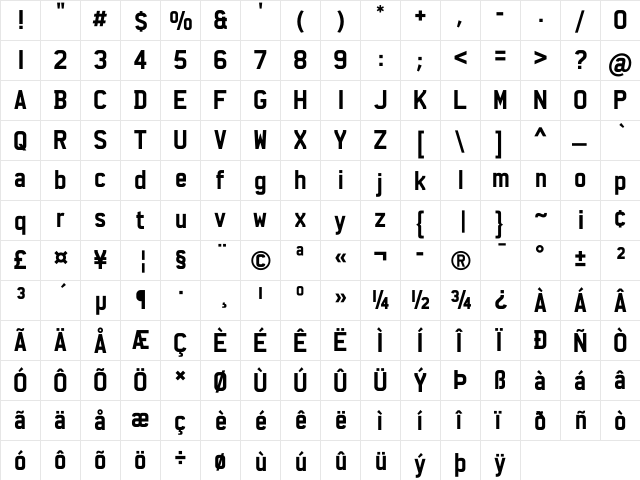
Charles Wright Bold
| Designer | Keith Bates |
| Copyright | Charles Wright Bold by Keith Bates 016 https://www.k-type.com The Bold uppercase conforms to British number plate specifications. The new lowercase, additional weights and European accented characters make the face more useful to designers. |
Design Context for Charles Wright Typeface
Charles Wright offers clean, dependable letterforms without strong stylistic allegiance, making it a practical choice for designers who need flexibility. Its bold stroke weight gives it real presence on the page.